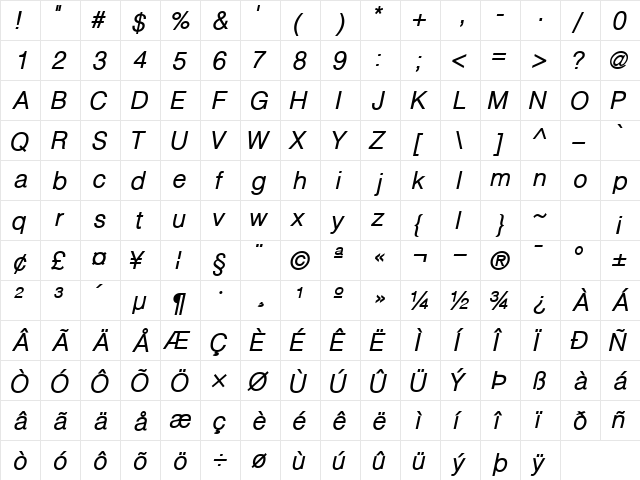
ContextLightSSK BoldItalic Font Preview
Design Context for ContextLightSSK Typeface
ContextLightSSK offers clean, dependable letterforms without strong stylistic allegiance, making it a practical choice for designers who need flexibility. The slanted form adds forward momentum and visual energy. The heavy weight commands attention and anchors typographic hierarchies.
Pro Tip: Try ContextLightSSK for annotation and caption copy alongside an upright companion — the contrast in angle creates a dynamic but ordered typographic system.